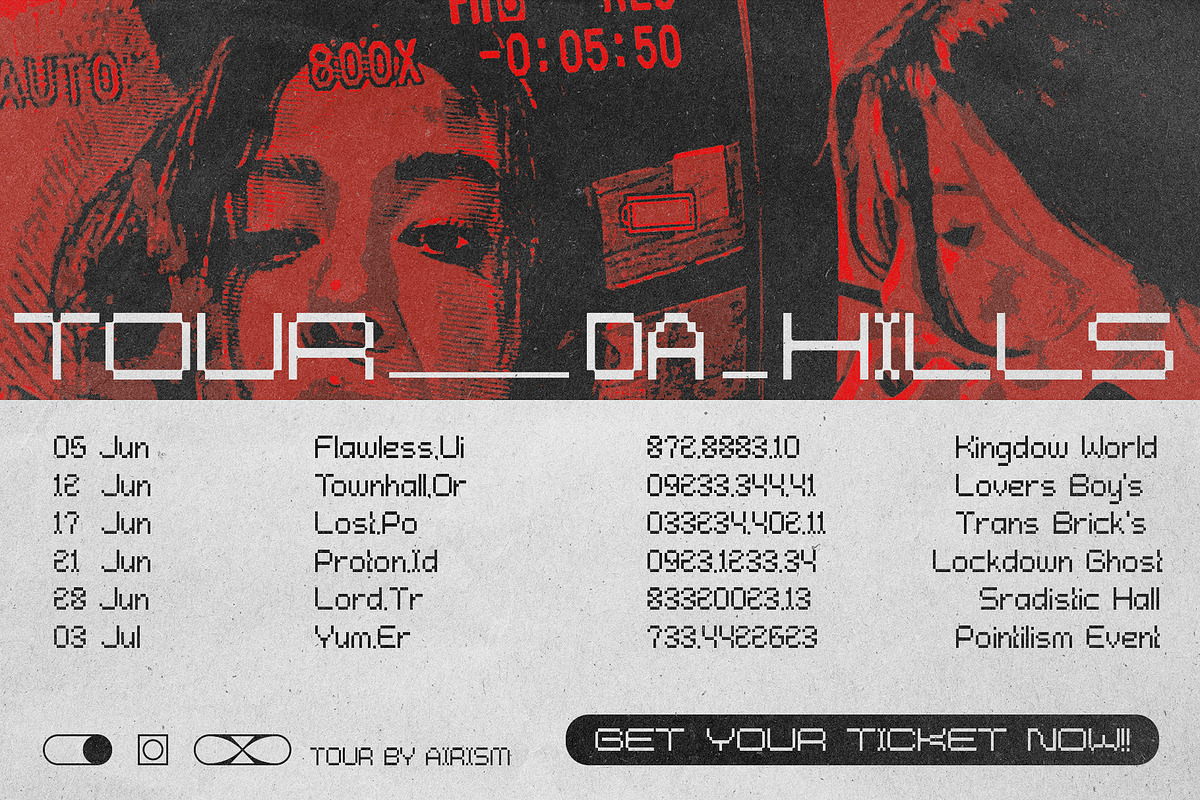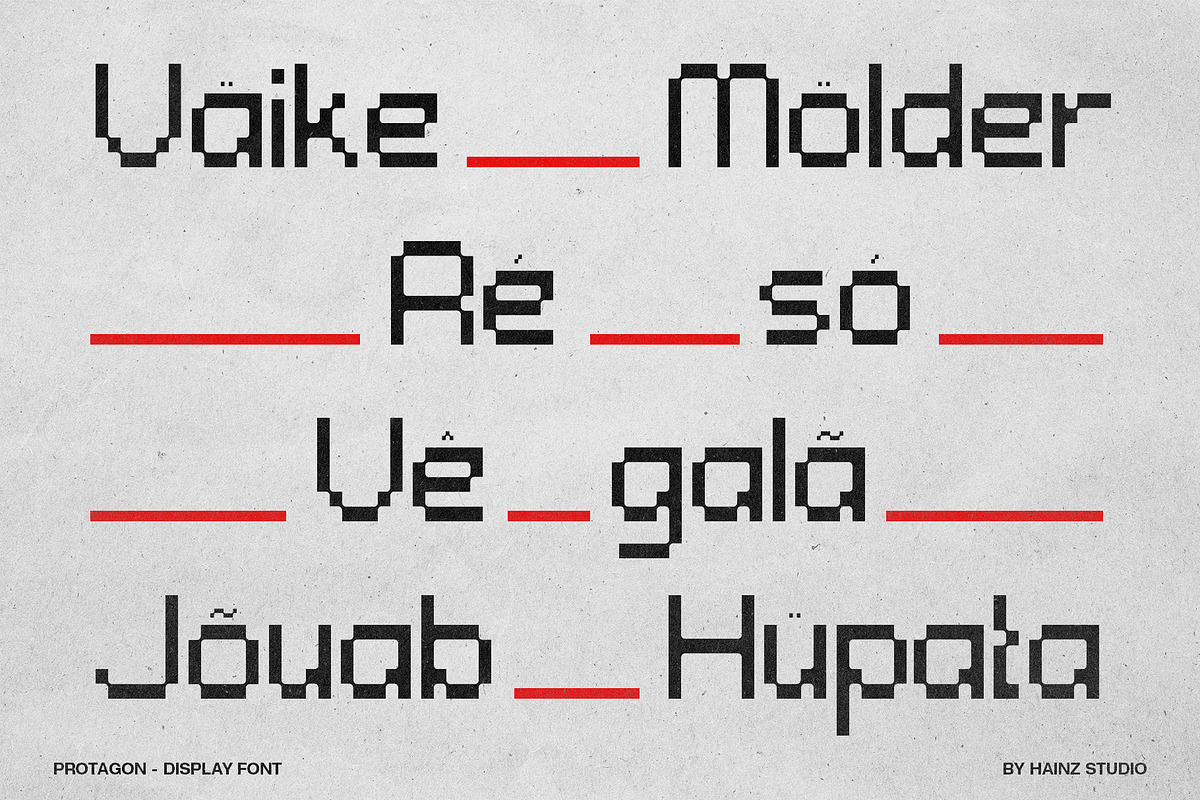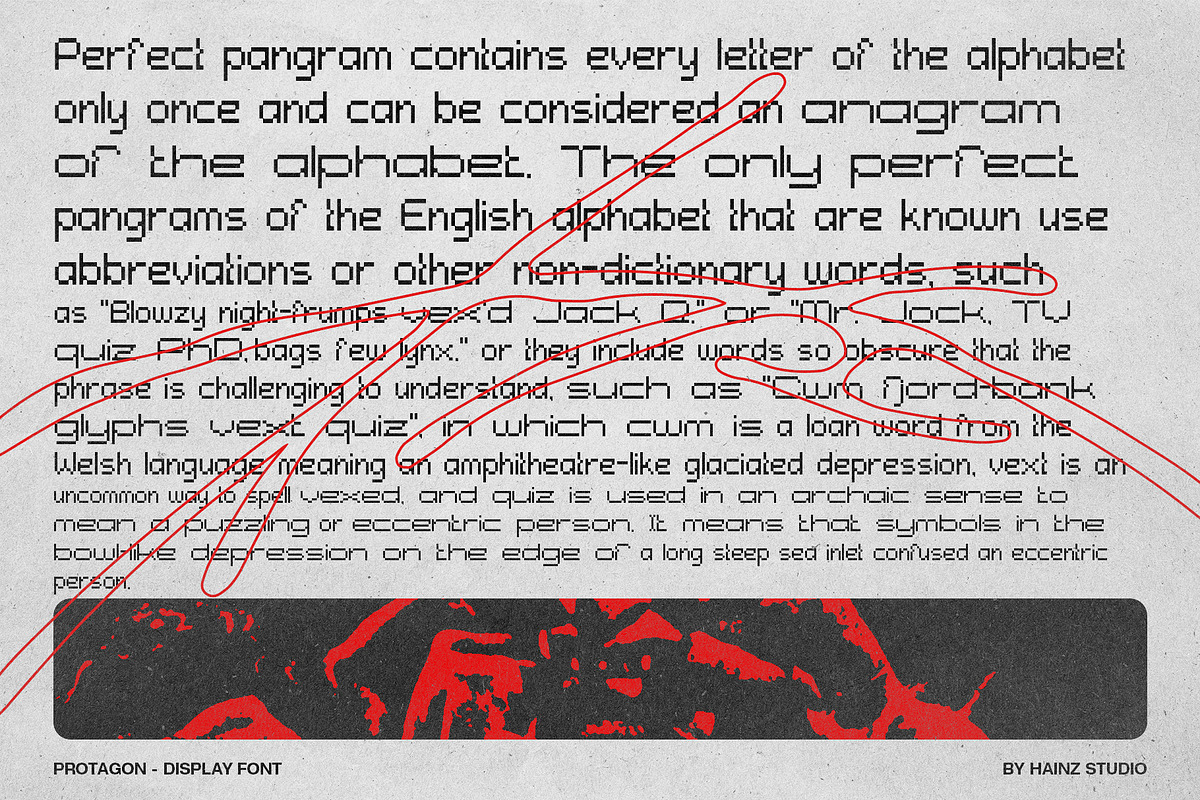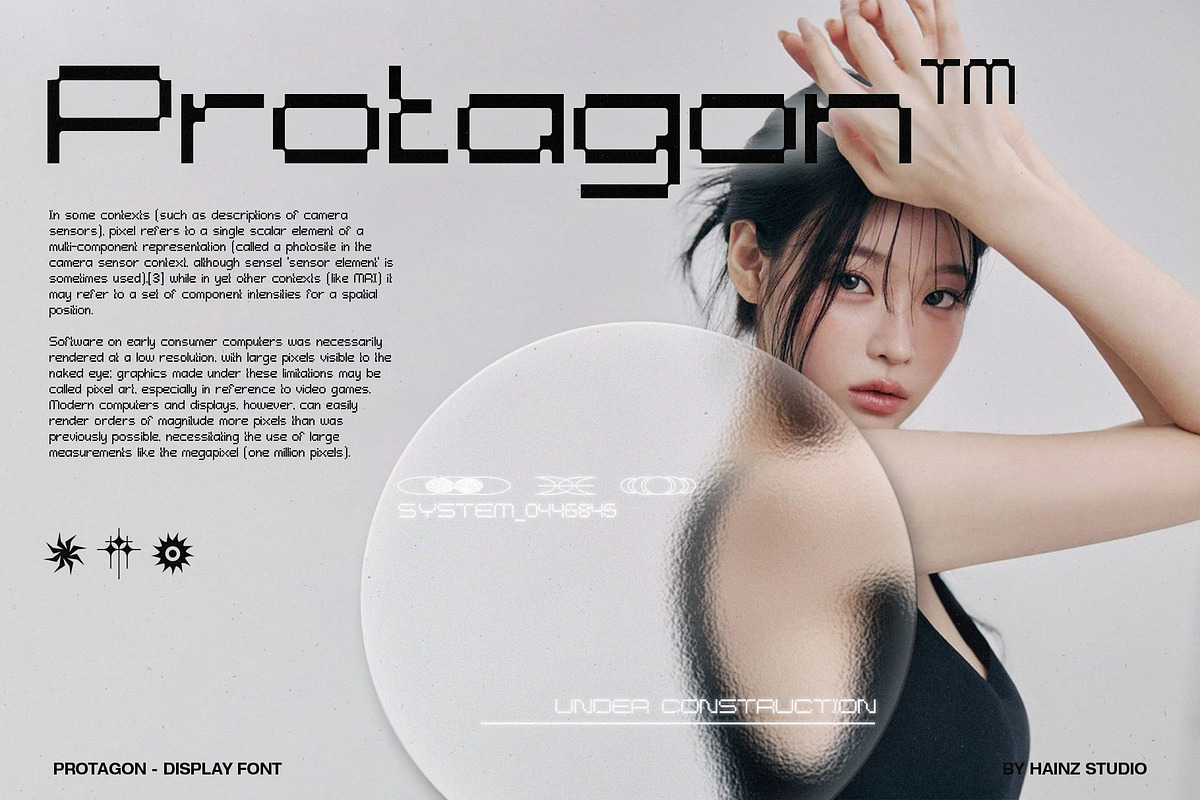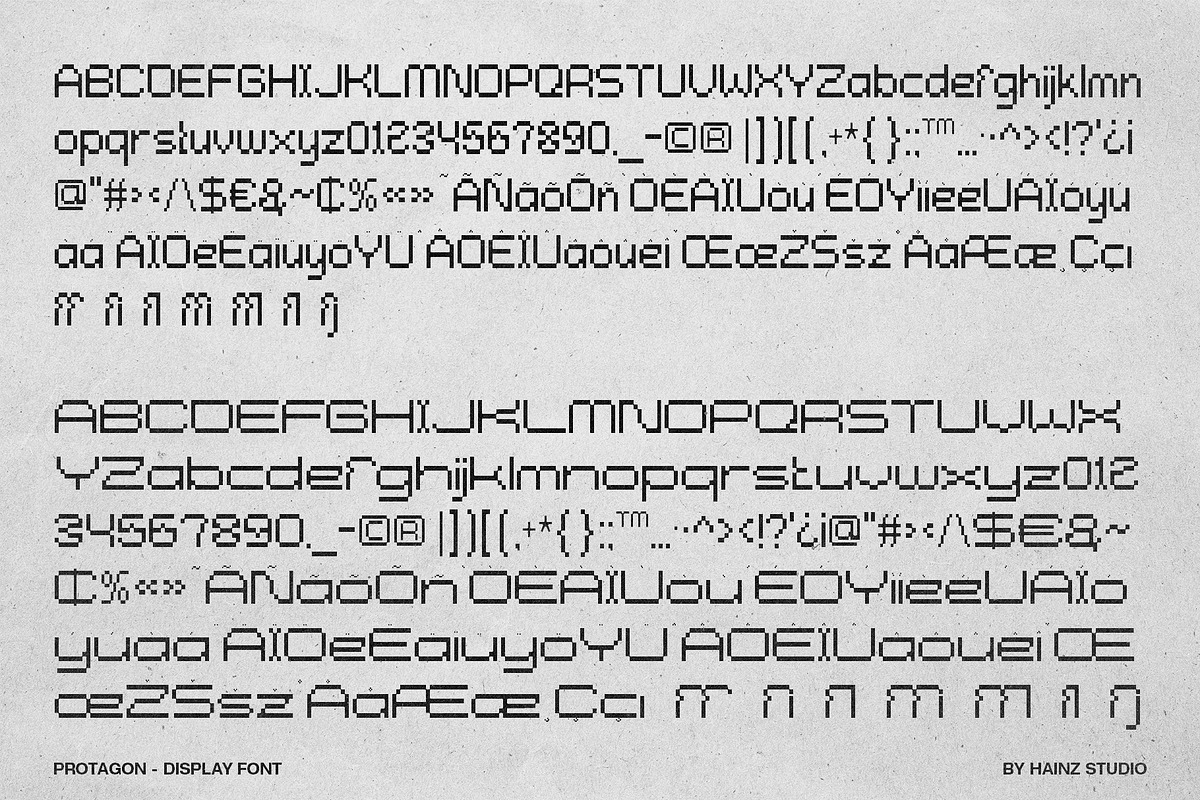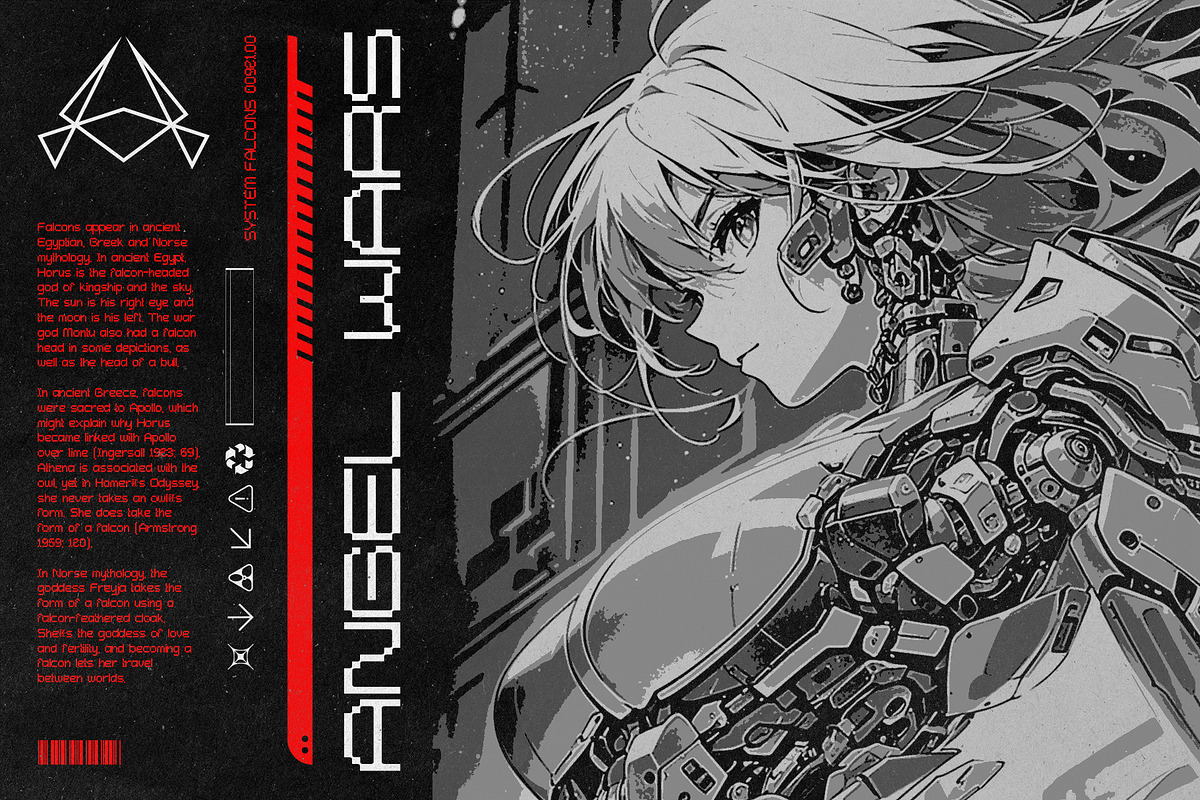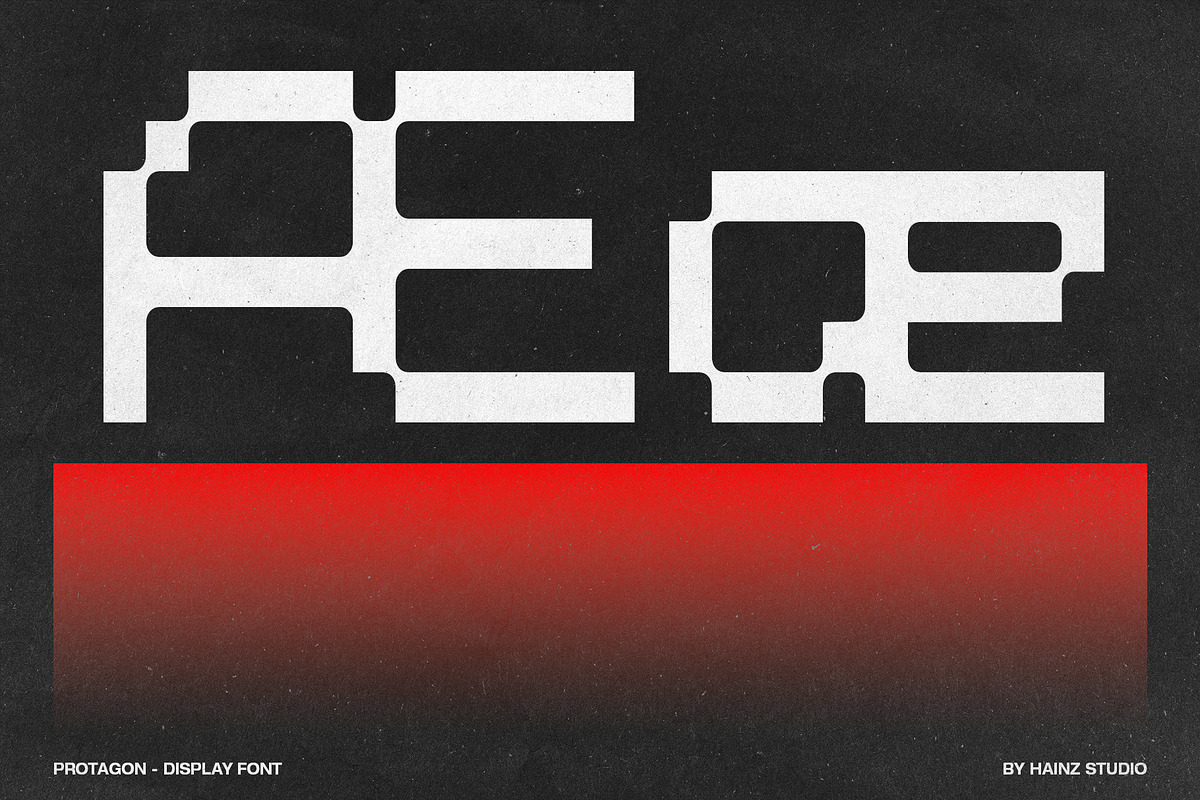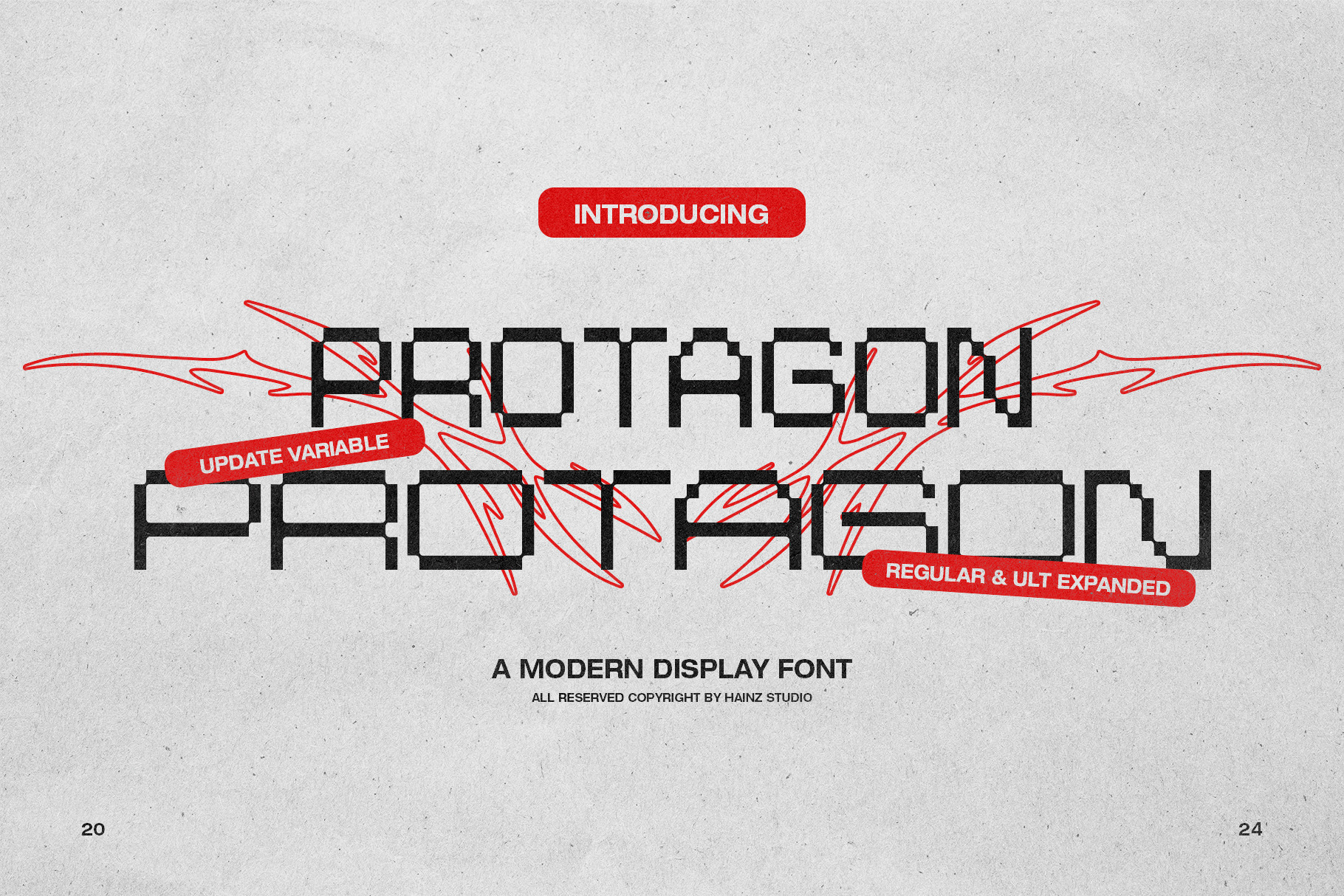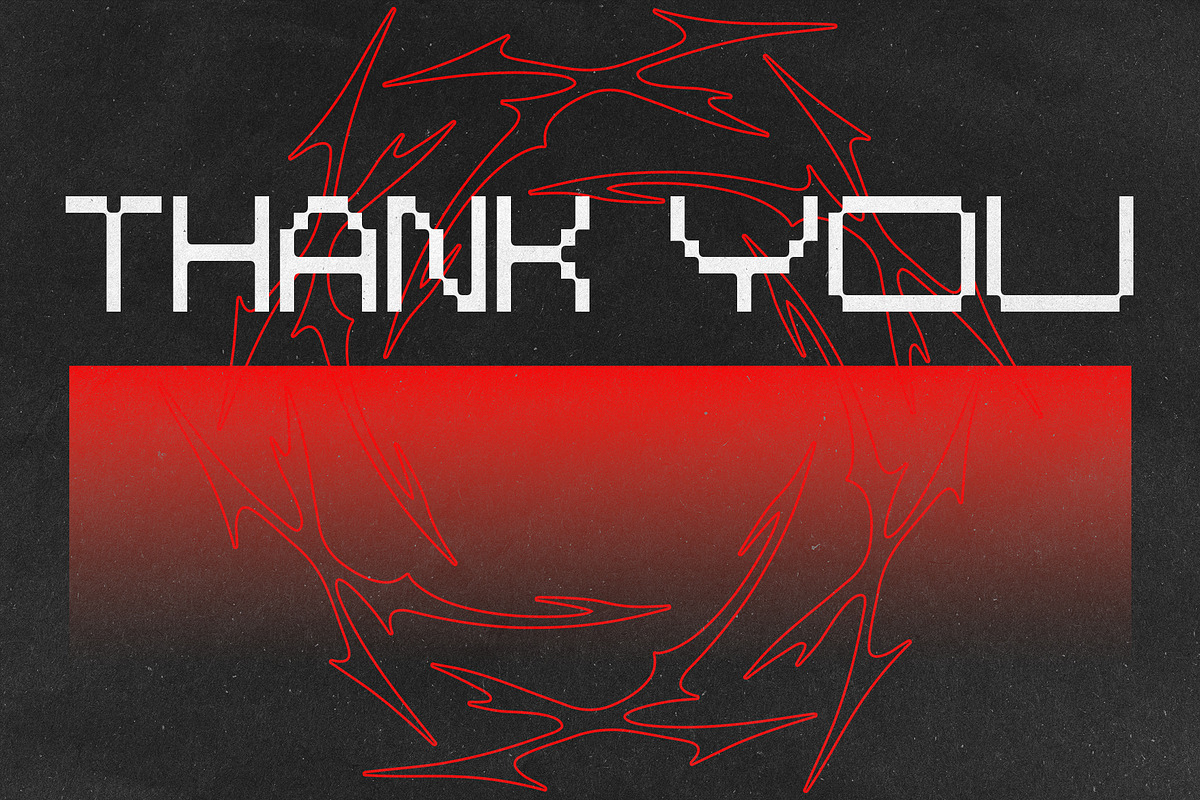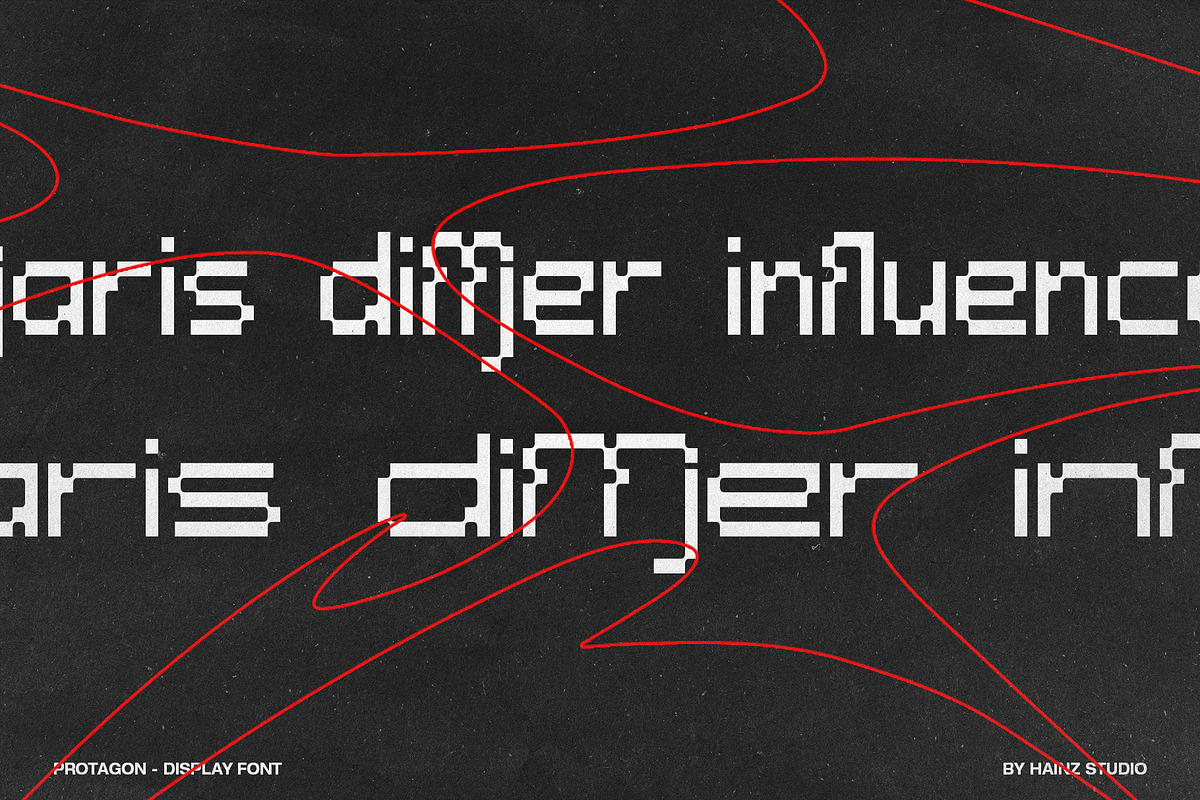
PROTAGON - Modern Pixel Display Font
Introduce Protagon - Modern Pixel Display Font
I made a modern pixel font inspired by poster design. Some posters on my Pinterest page triggered me to make this font. Retro classic pixel inspired to make this font with modern style.
This font supports Uppercase Lowercase Numbering and some Multilingual. Include 2 variation fonts regular & Ultra Expanded